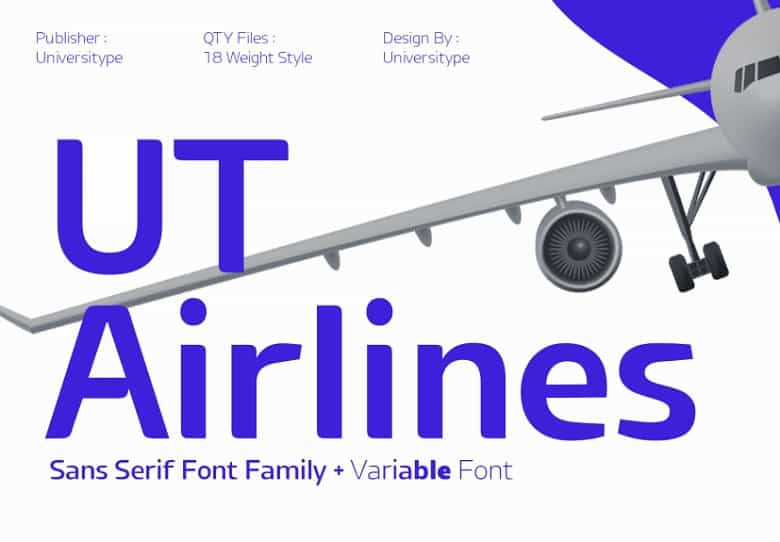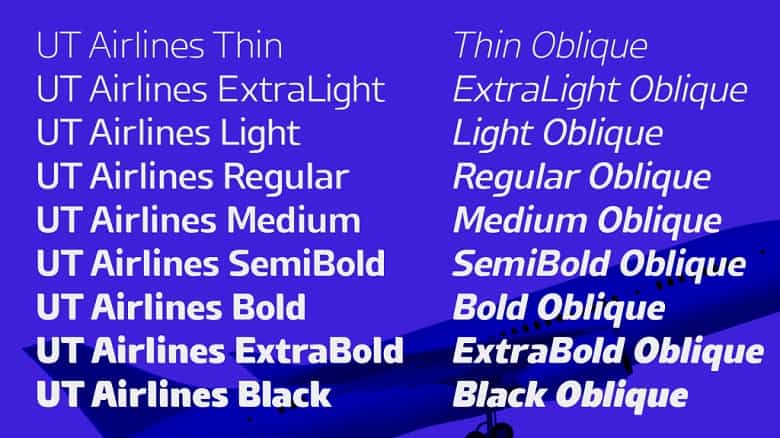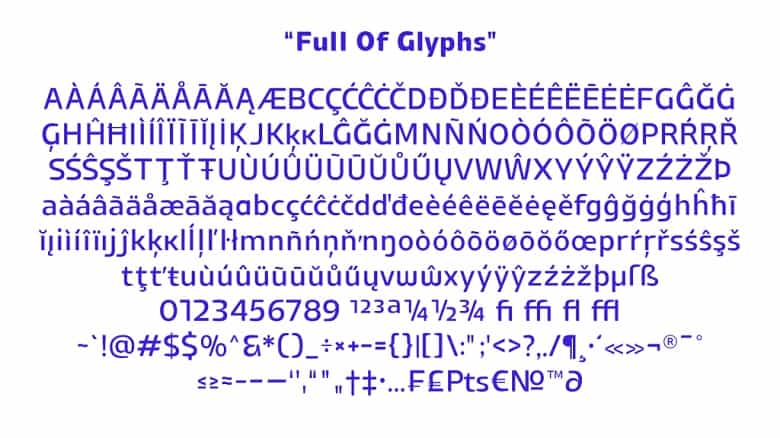
UT Airlines is a sans serif font, which gives the design projects the energy and focus of flying. The logo of UT Airlines reflects the look and feel of contemporary aircrafts and it goes beyond the usual font style – it’s an emblem of courage, power and innovation.